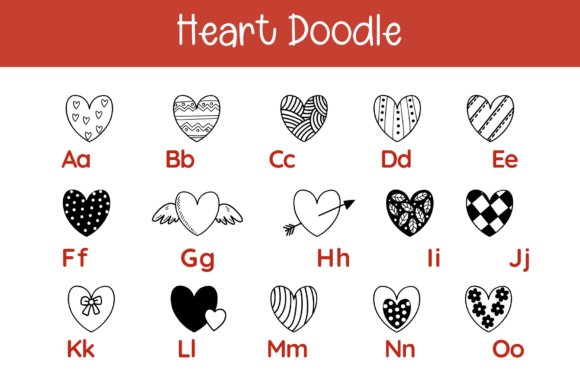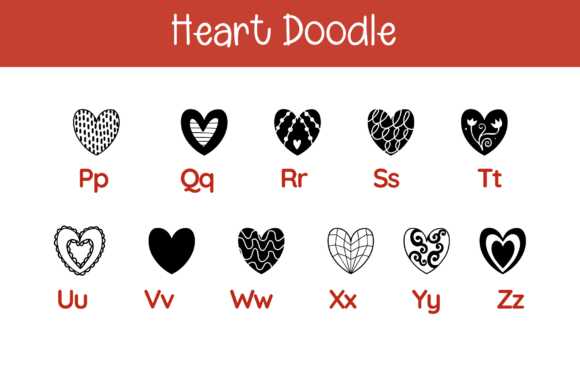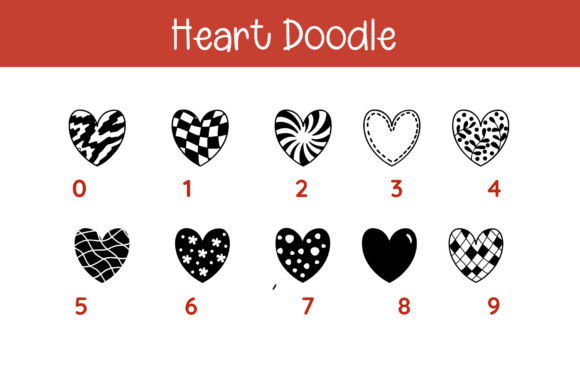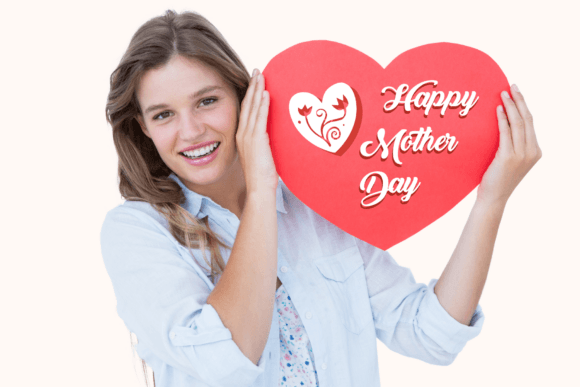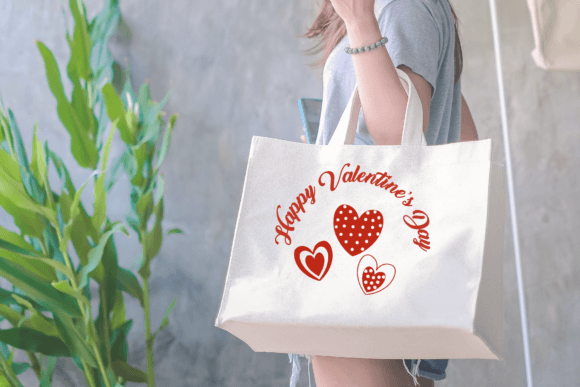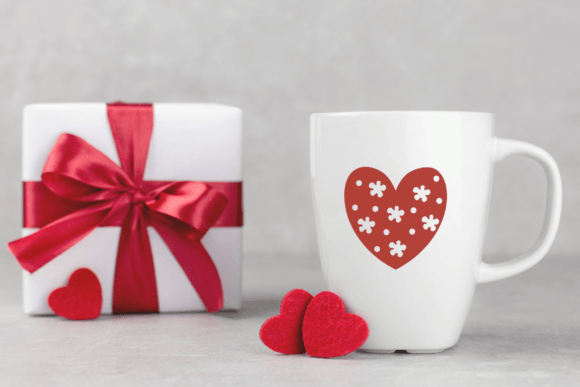
Heart Doodle Font: Add a Touch of Whimsy to Your Designs
Are you looking for a font that can add a dash of playfulness and cuteness to your designs? Look no further than the Heart Doodle Font! This hand-drawn doodle font is perfect for crafters, designers, and anyone who wants to create visually appealing and engaging content. In this article, we’ll explore the features and benefits of the Heart Doodle Font and how you can use it to elevate your designs.
What is Heart Doodle Font?
The Heart Doodle Font is a set of hand-drawn doodle characters that are designed to be cute, playful, and fun. This font is perfect for decorating digital prints, mugs, T-shirts, bags, greeting cards, and more. The Heart Doodle Font is also great for creating quotes or posts for social media platforms like Facebook and Instagram, planners, and any special occasions.
Features of Heart Doodle Font
The Heart Doodle Font has several features that make it a great addition to your design toolkit. Some of its key features include:
- Hand-drawn design: The Heart Doodle Font is carefully crafted with a hand-drawn design that gives it a unique and personal touch.
- Cute and playful: The font is designed to be cute and playful, making it perfect for designs that require a touch of whimsy.
- Versatile: The Heart Doodle Font can be used for a wide range of design projects, from digital prints to social media posts.
Benefits of Using Heart Doodle Font
Using the Heart Doodle Font can bring several benefits to your designs. Some of the benefits include:
- Adds a personal touch: The hand-drawn design of the Heart Doodle Font adds a personal touch to your designs, making them more relatable and engaging.
- Increases visual appeal: The cute and playful design of the font increases the visual appeal of your designs, making them more attractive to your audience.
- Perfect for special occasions: The Heart Doodle Font is perfect for designing greeting cards, invitations, and other materials for special occasions.
- Great for social media: The font is great for creating quotes or posts for social media platforms like Facebook and Instagram.
Design Ideas Using Heart Doodle Font
The Heart Doodle Font is versatile and can be used for a wide range of design projects. Here are some design ideas to get you started:
- Greeting cards: Use the Heart Doodle Font to create greeting cards for special occasions like birthdays, weddings, and anniversaries.
- Digital prints: Use the font to create digital prints that can be used for wall art, planners, and journals.
- Social media posts: Use the font to create quotes or posts for social media platforms like Facebook and Instagram.
- Mugs and T-shirts: Use the font to create custom mugs and T-shirts.
The Heart Doodle Font is a great addition to any design toolkit. Its hand-drawn design, cute and playful style, and versatility make it perfect for a wide range of design projects. Whether you’re a designer, crafter, or simply someone who loves to create, the Heart Doodle Font is a great choice for adding a touch of whimsy to your designs.